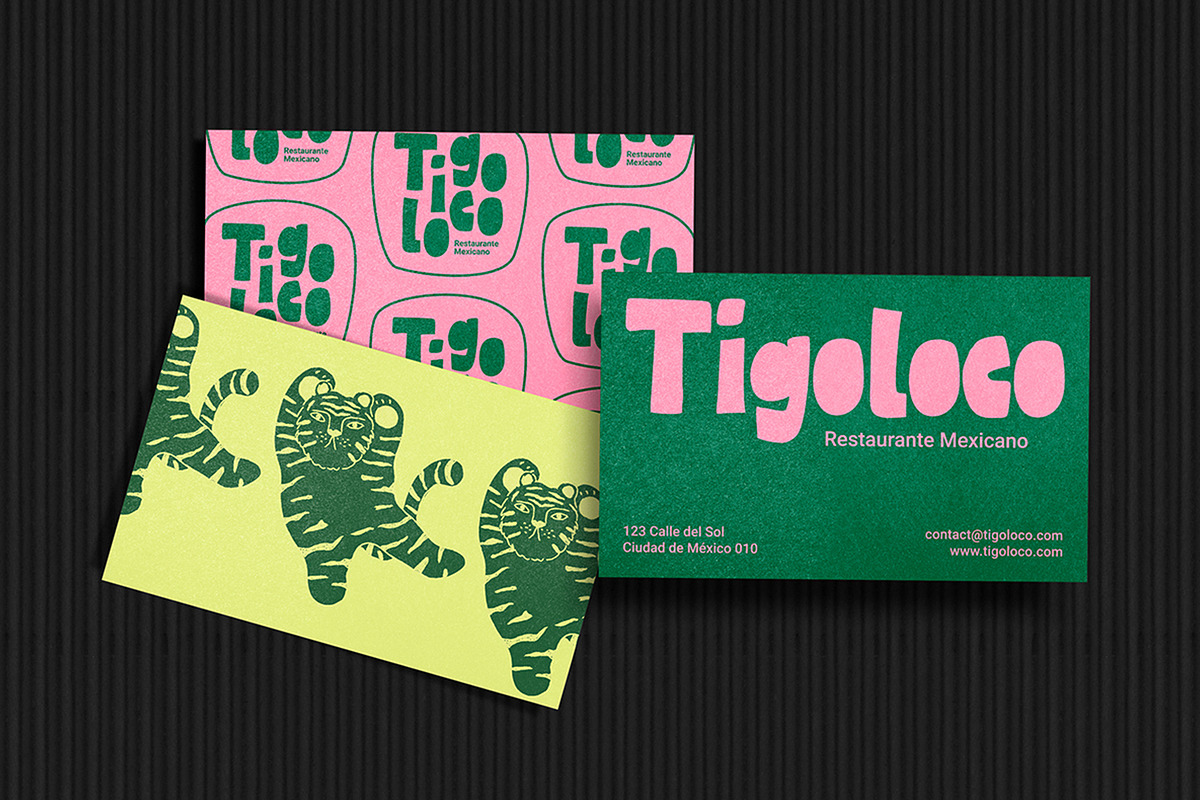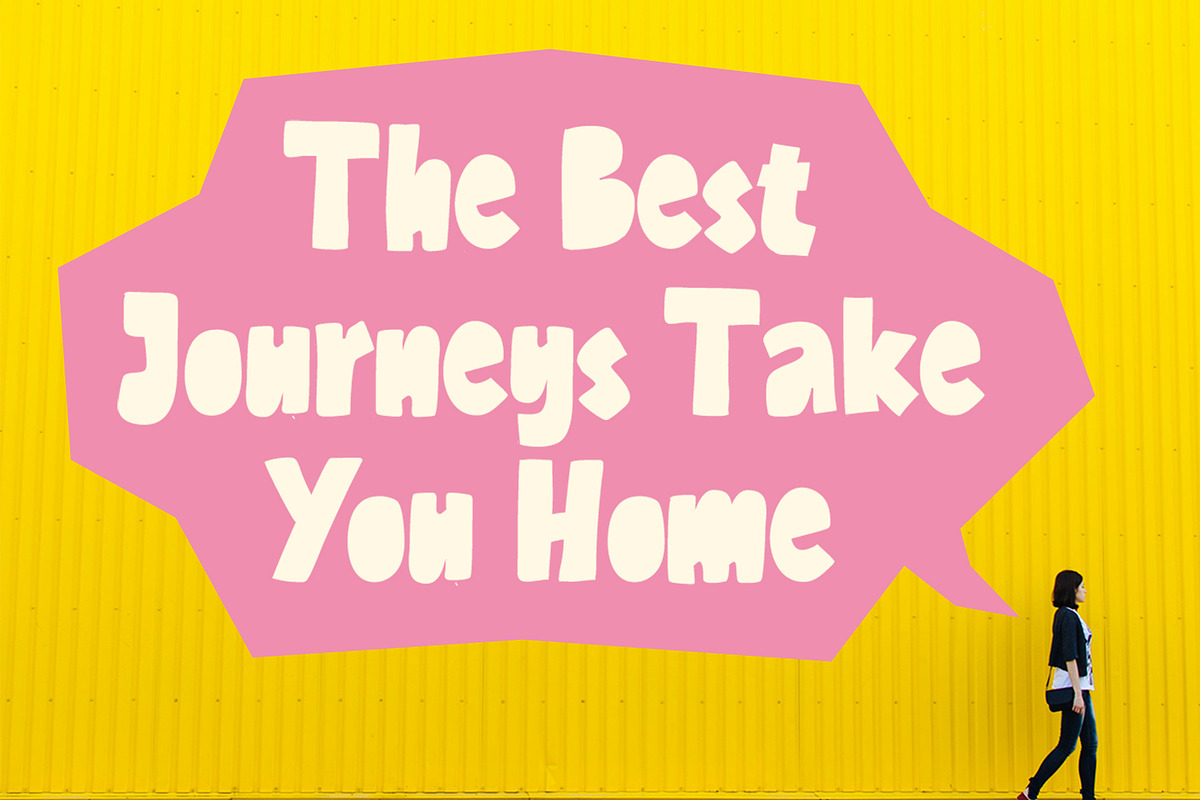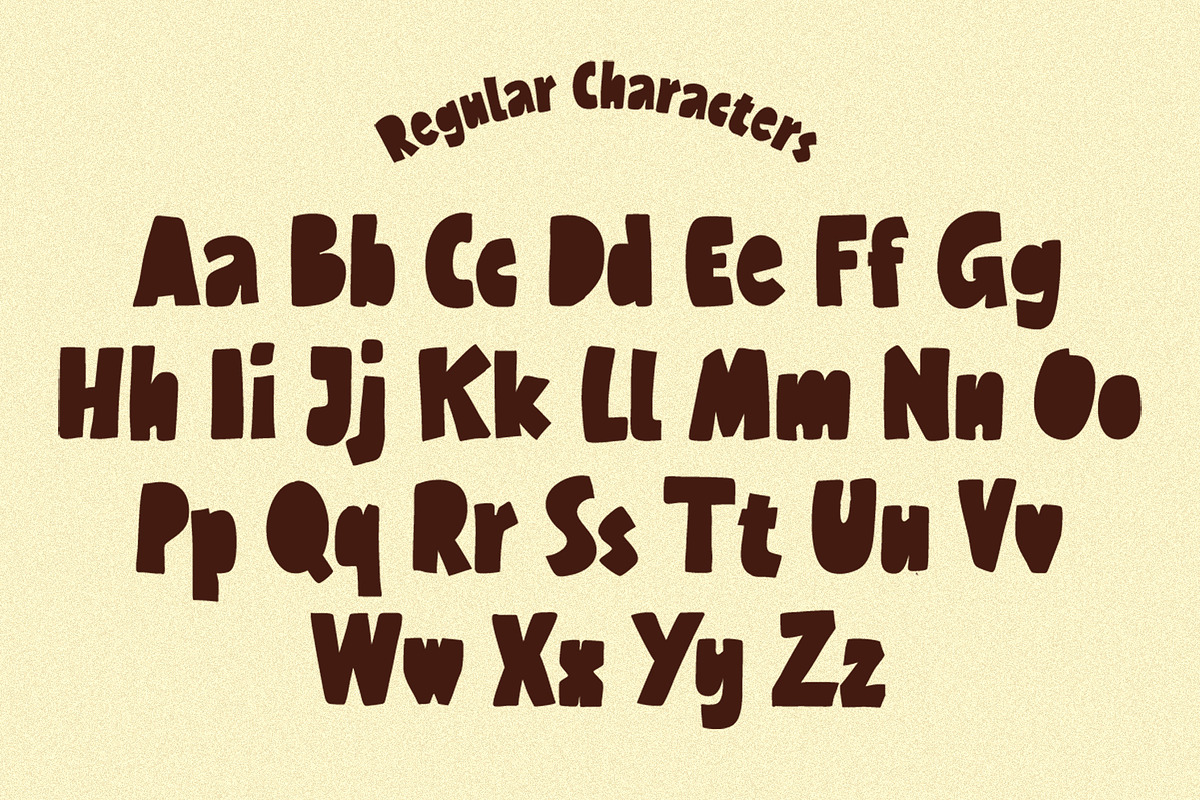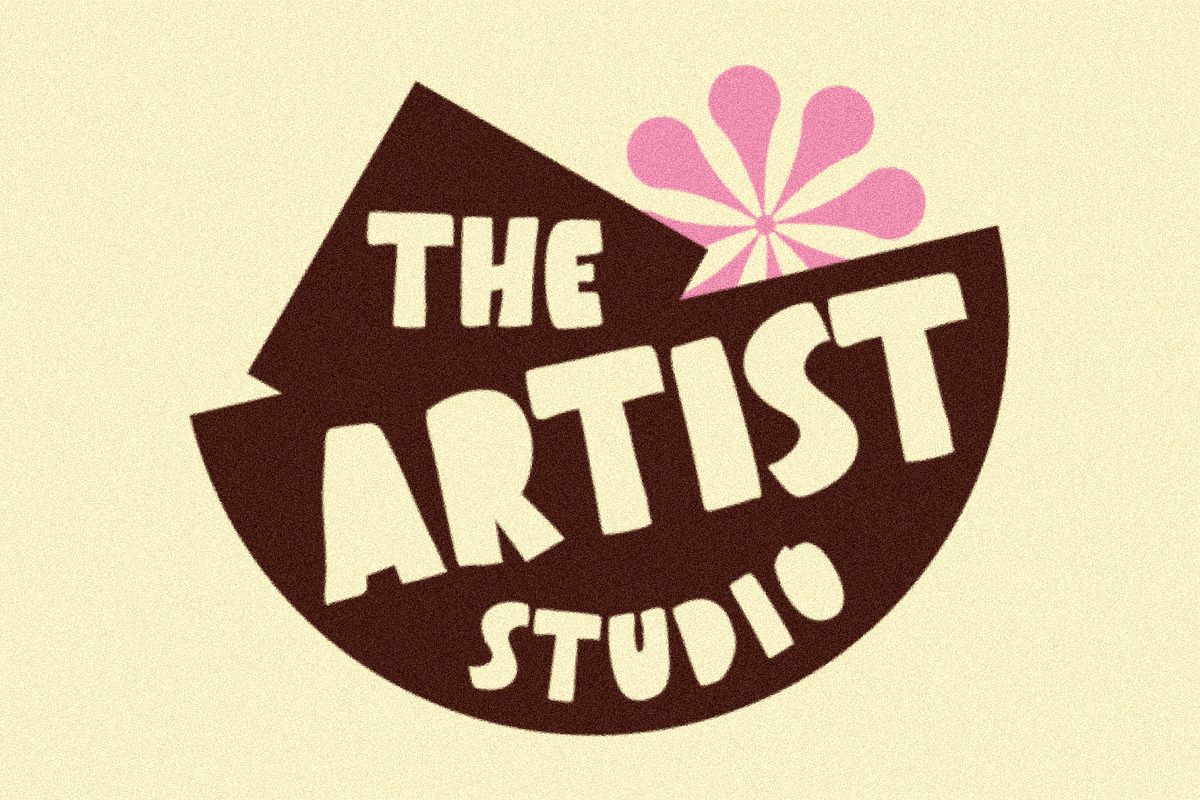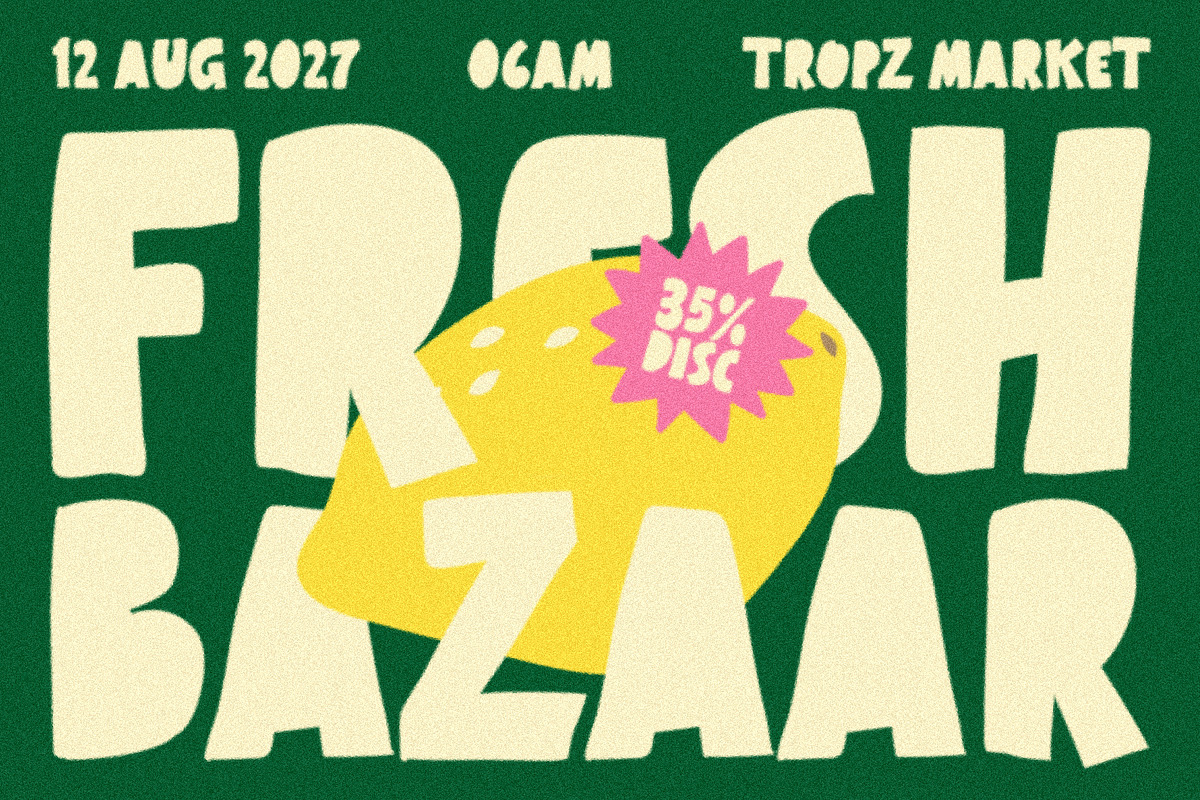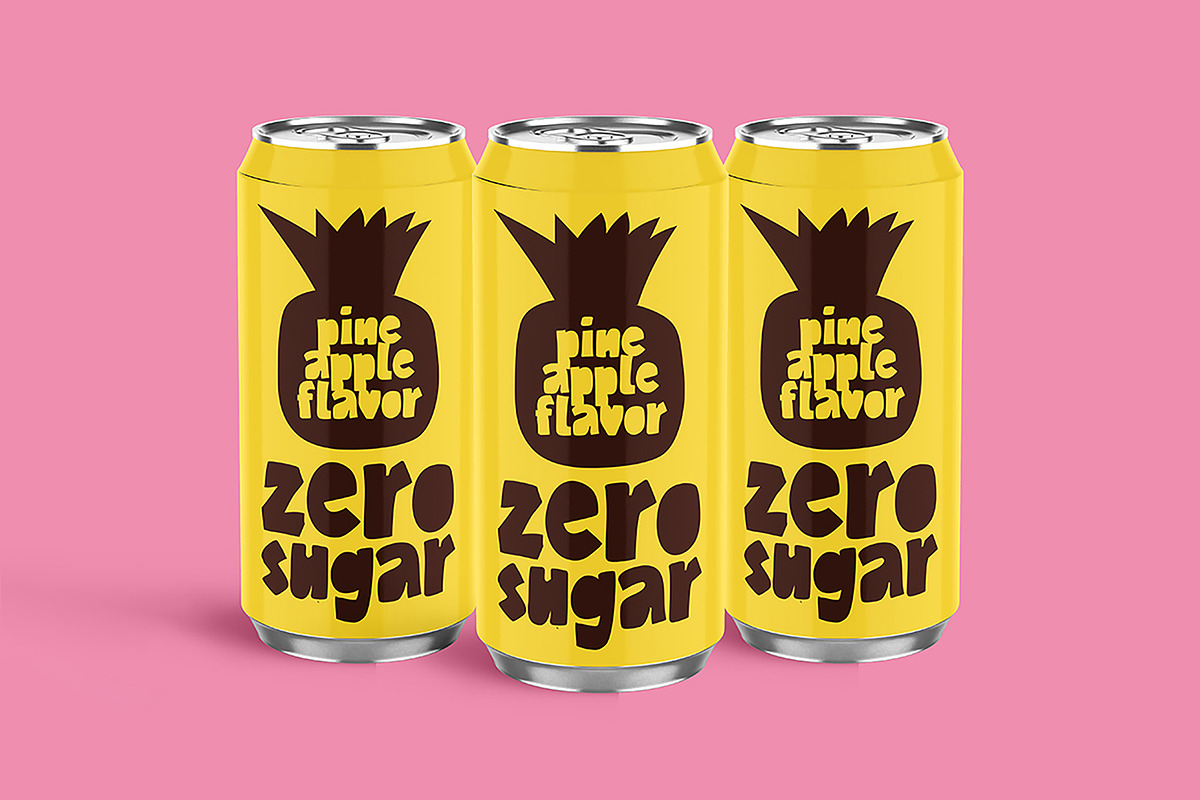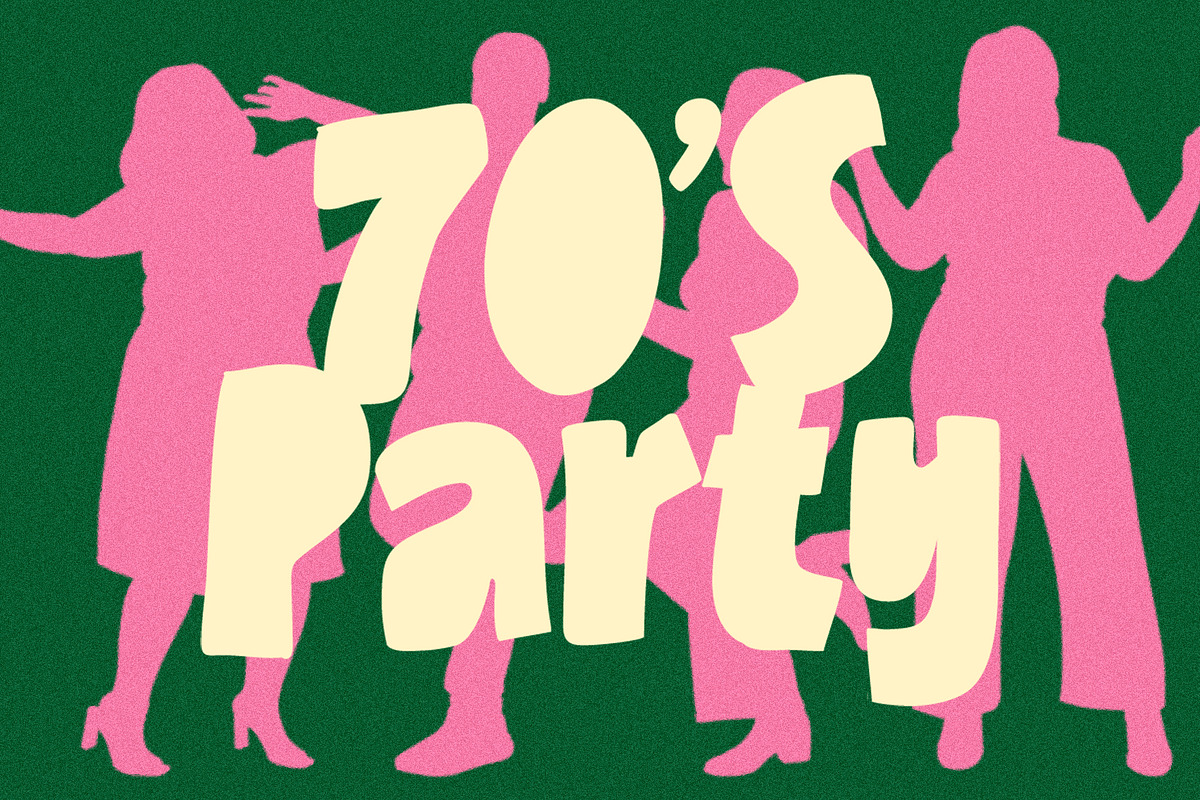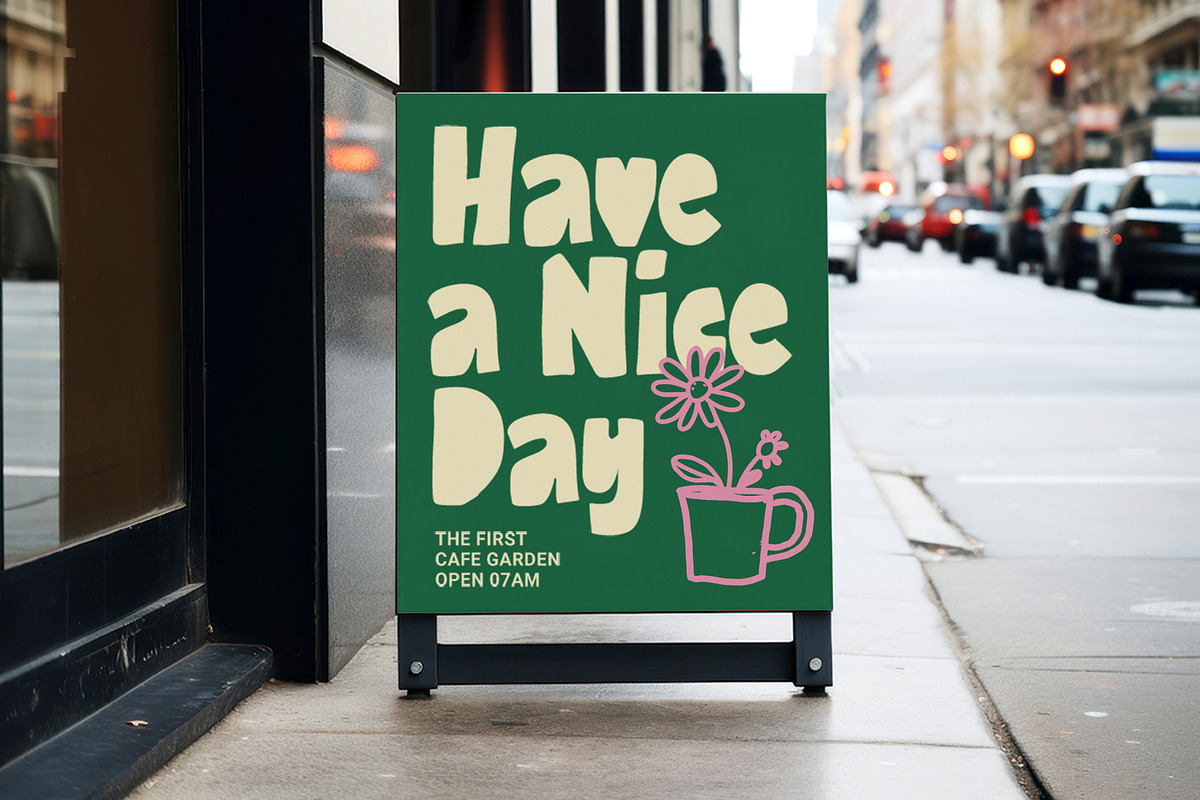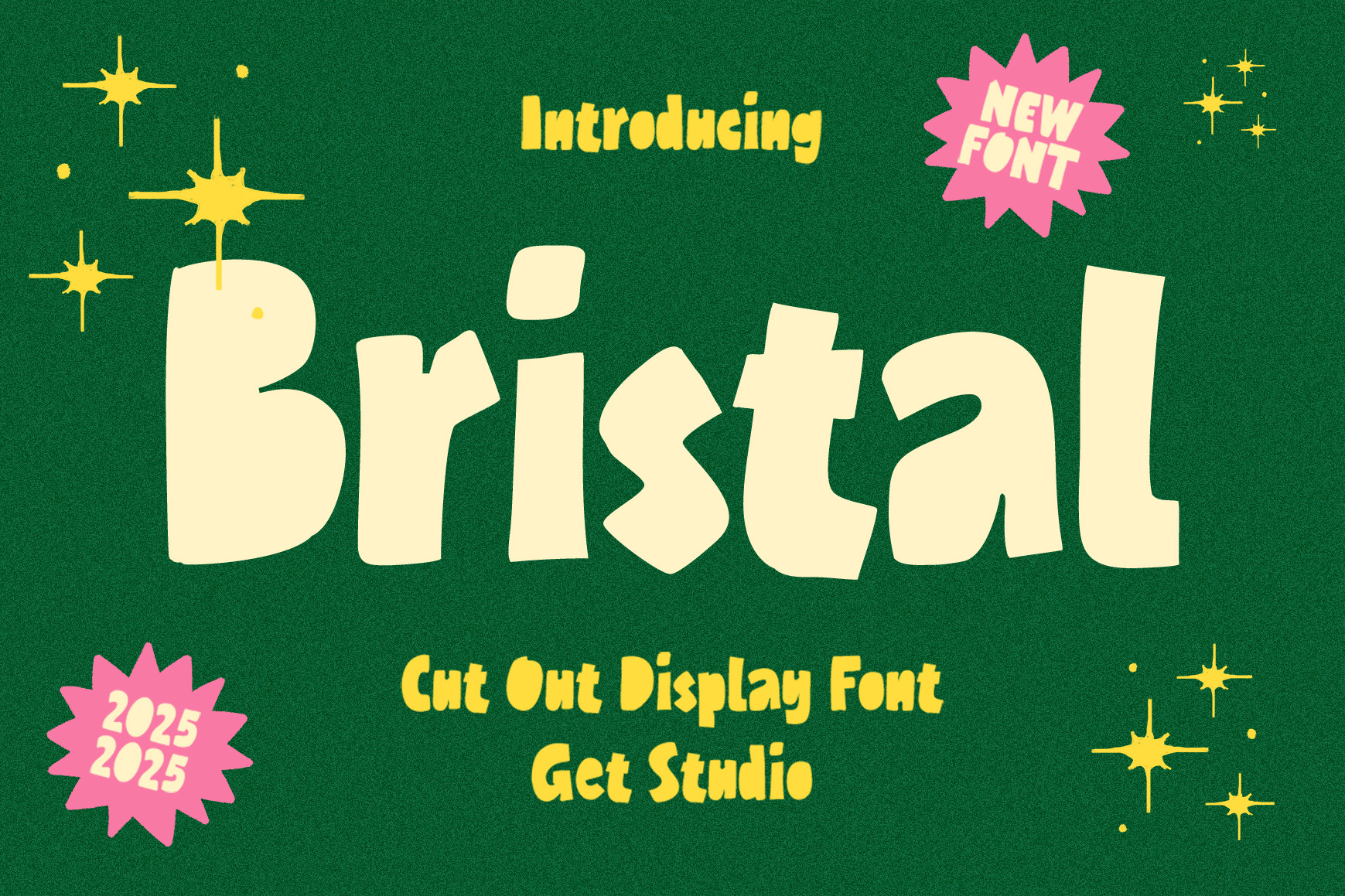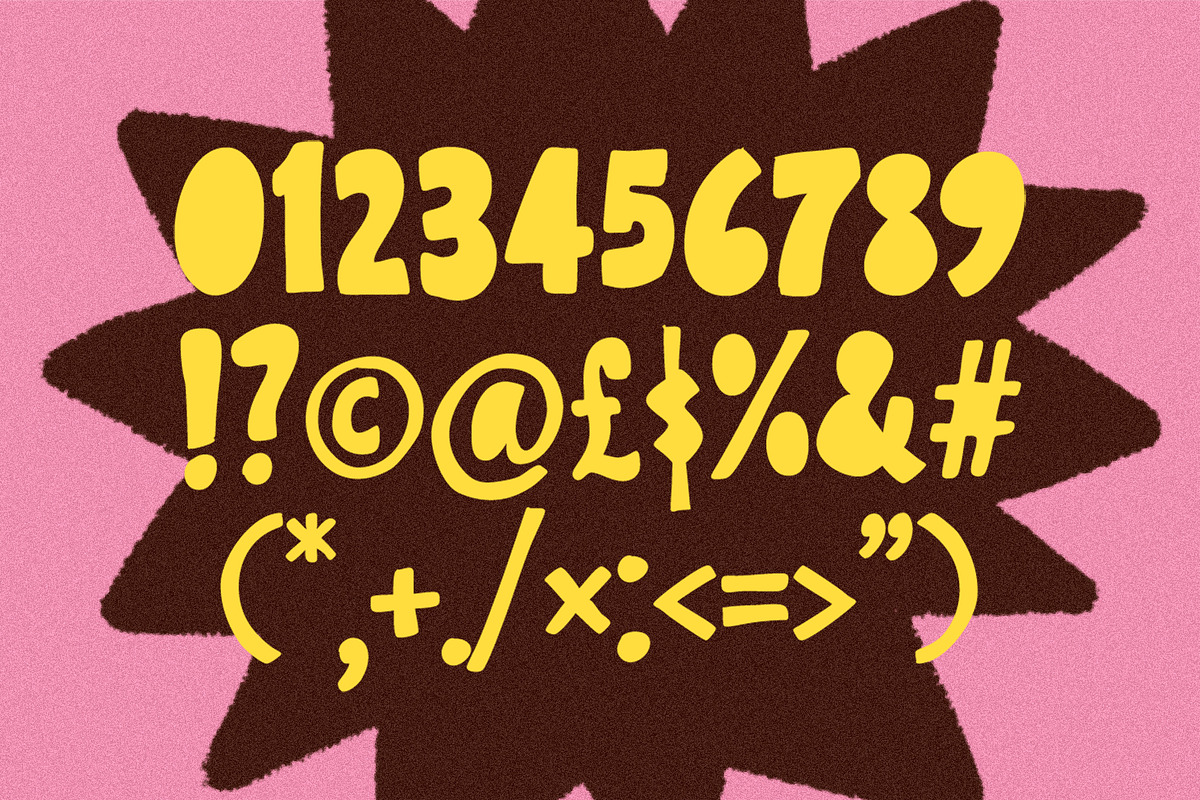
Bristal - Cut Out Display Font
Bristal is a playful cut-out display font with a bold, quirky personality. Inspired by handcrafted paper textures and retro charm, Bristal brings a fun, eye-catching vibe perfect for posters, children’s books, branding, and creative projects. Designed by Get Studio, this font adds a splash of whimsy and warmth to any layout!